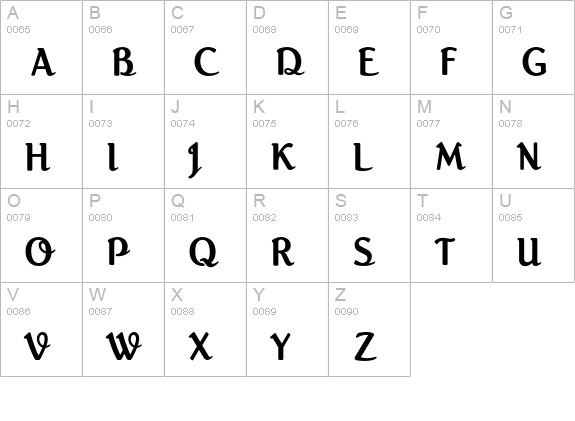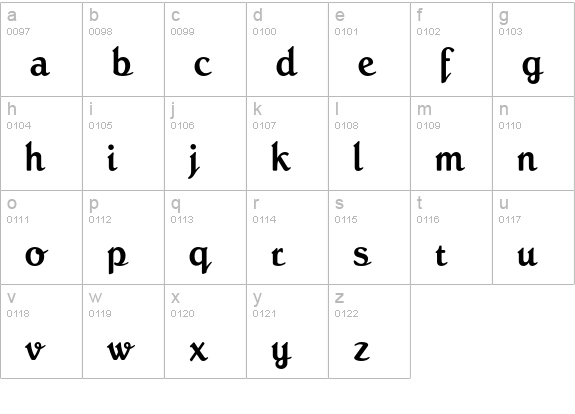
RomanScriptEF Font Details
RomanScriptEF is a elegant and versatile font that combines classic Roman lettering with modern script elements. This unique fusion creates a timeless and sophisticated look that is perfect for a wide range of design projects. Whether you are working on invitations, logos, branding, or any other creative endeavor, RomanScriptEF is sure to make a statement. What sets RomanScriptEF apart is not only its beautiful design, but also the fact that it is completely free to download. Yes, you read that right - this stunning font is freely available to download at FontsMarket.com. This means you can add a touch of elegance to your projects without breaking the bank. Don't miss out on this fantastic opportunity to enhance your designs with the beauty and style of RomanScriptEF. Download it today and let your creativity shine!